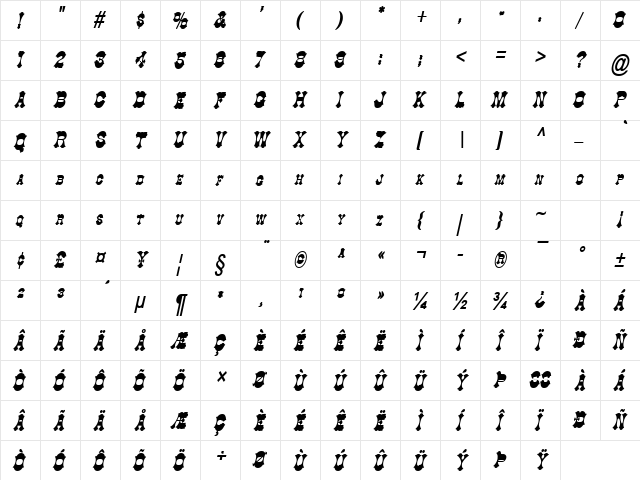
Cowboy Thin BoldItalic Font Preview
Cowboy Thin BoldItalic
Design Context for Cowboy Thin Typeface
Cowboy Thin taps into classic Western woodtype traditions — bold, characterful, and impossible to ignore. The dynamic lean of this cut emphasises speed and emphasis in any layout. Its bold stroke weight gives it real presence on the page.
Perfect for barbecue restaurants, country music branding, vintage poster design, and rustic packaging.
Font Pairing: Combine Cowboy Thin with a simple slab or neutral sans — period-accurate companions reinforce the vintage feel without competing for attention.
Pro Tip: Pair Cowboy Thin with aged textures or distressed backgrounds to amplify its vintage personality.